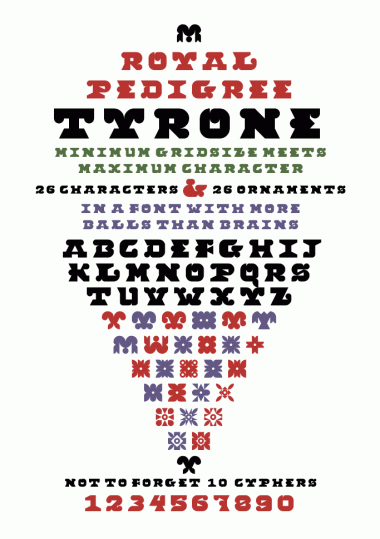
Alas! My Tyrone Struction had a flaw that seemed solved, but now strikes back.
In the review window of the FontStruction application, letterspacing looks odd. Rob Meek pointed out this was probably due to the fact that I started some characters with a ‘half block’.
Much to my joy, when using the TrueType download in Indesign, the problem was gone. At least on screen it was. When printing it to a postscript printer, the troubles rose again… Ofcourse, lots of this anoyment comes out of the fact that I use very little grids. Spacing etc… is in relation to the blocksize. To be continued…
Glad to inform that Rob downloaded and printed Tyrone from Indesign. And had no spacing troubles.
Very nice and detailed letterforms at such a small grid size.